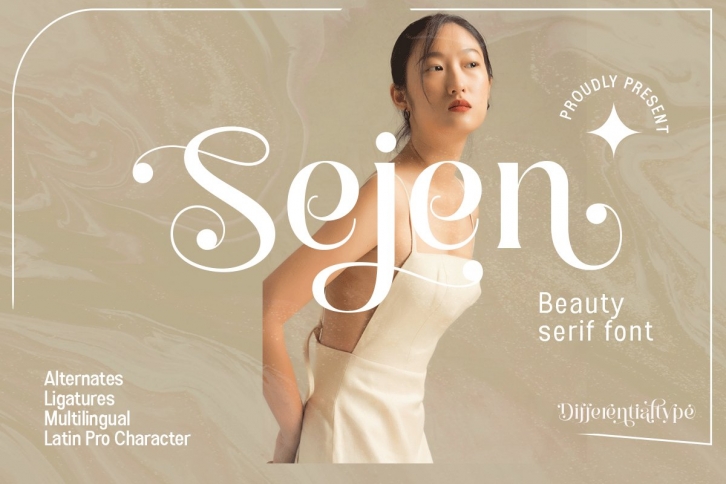
Sejen is a trendy and unique font with an authentic style. It was designed by Differentialtype and it's a great choice for creative people who need such a font. It was released on June 13, 2022 and the file size is 19.15 MB. Sejen will add an organic vibe to any design idea!